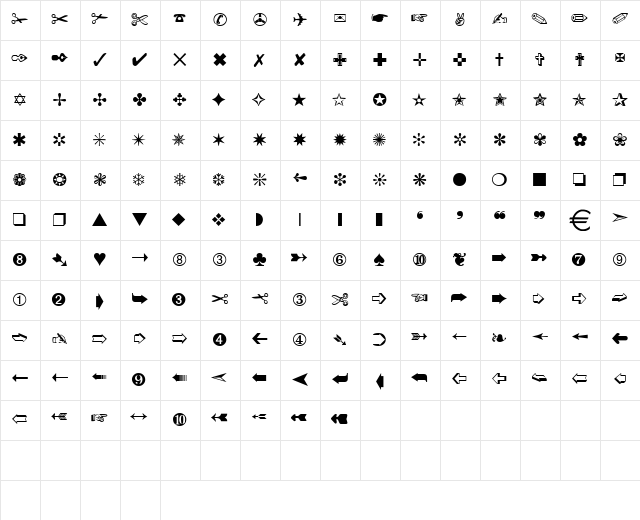
Dingthings3 Normal
Design Context for Dingthings3 Typeface
Dingthings3 takes a measured approach to typography — its balanced proportions and neutral character make it a reliable workhorse for both digital and print work. Its slender proportions lend an understated elegance to any composition.